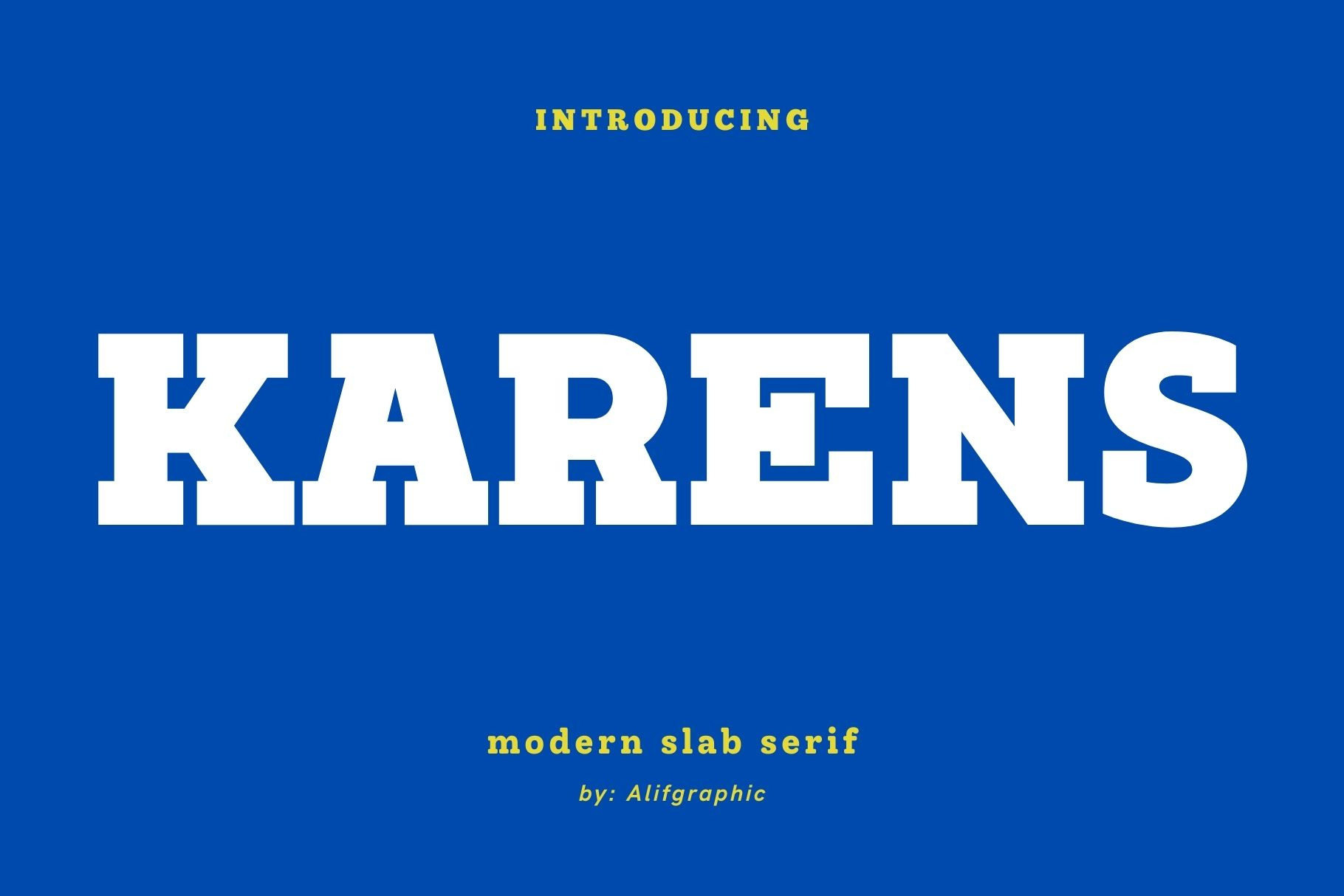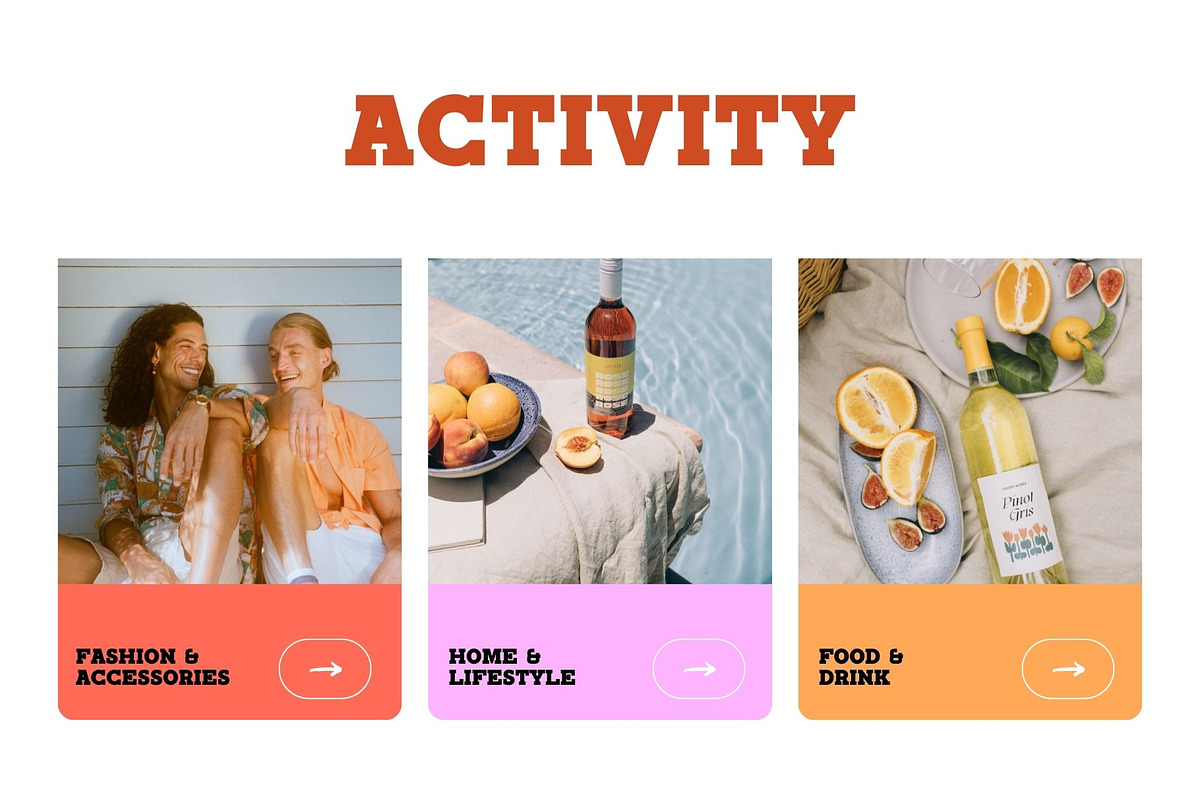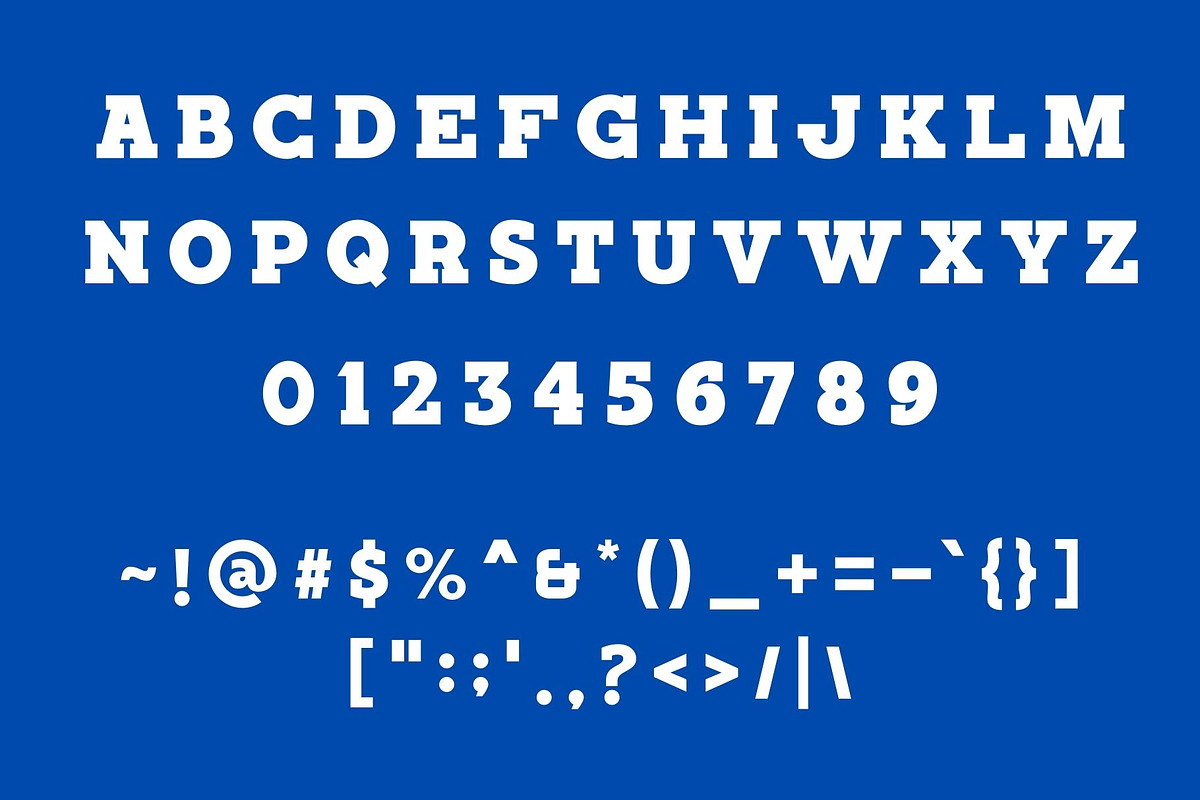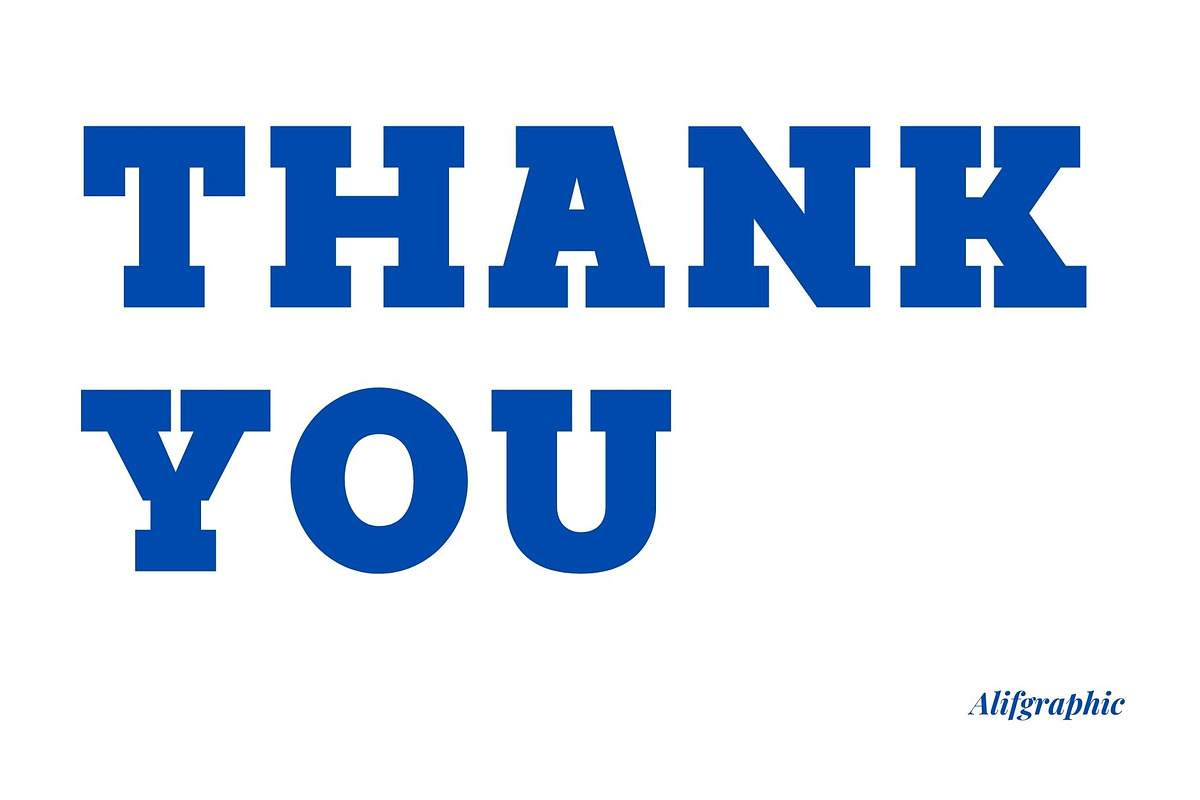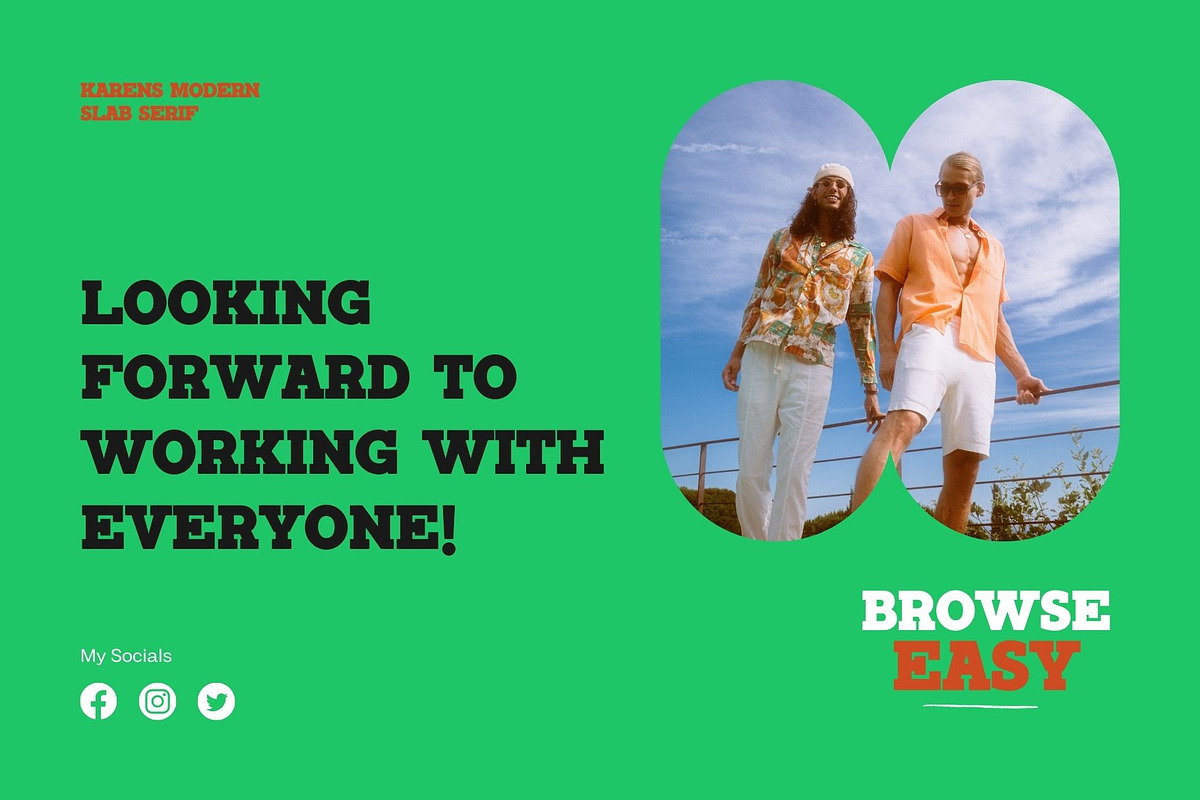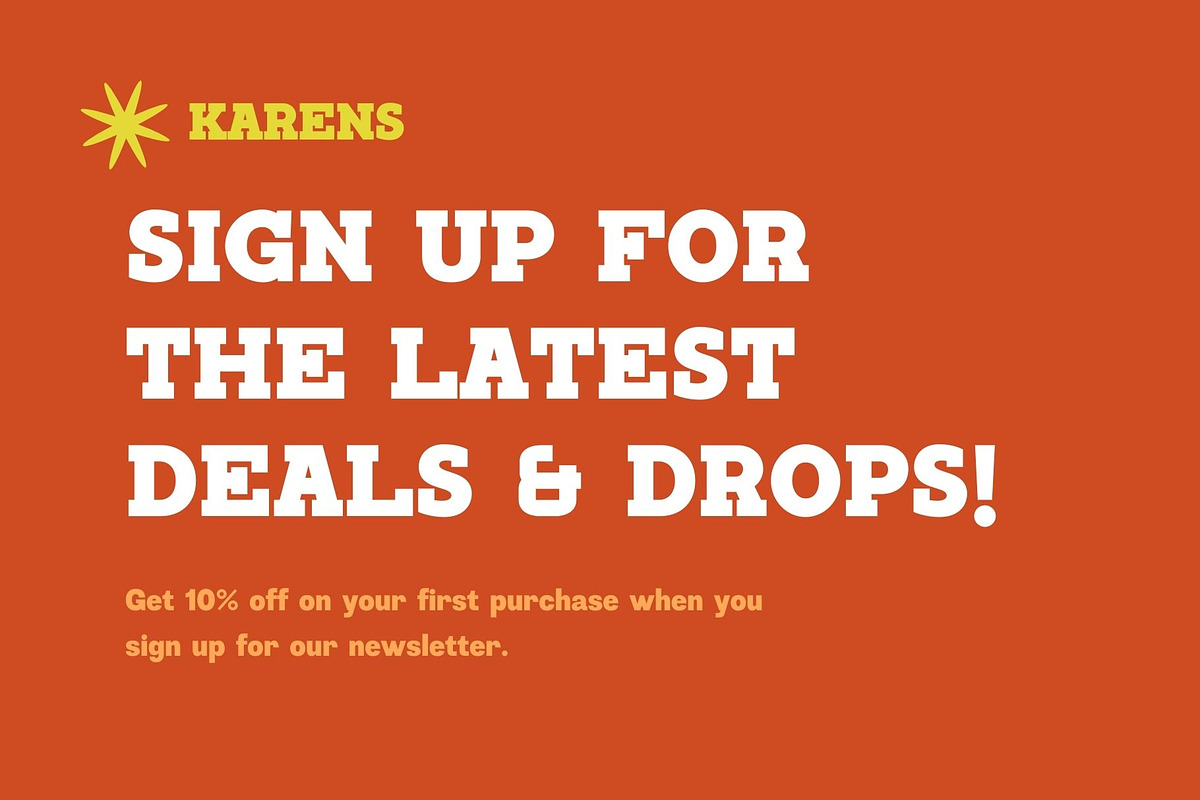
Karens - Modern Slab Serif Typeface
Introducing 'Karens' Font:
A beautiful series of letters is encapsulated in this 'Karens' font. Neat lettering is perfect for writing needs that are modern and pleasing to the eye, there is a Modern impression but still looks Elegant when used for writing. Tidiness in the manufacture of each letter, is our top priority. You can have fun and be creative using this font product we made, because the results will definitely be very satisfying.
Ideal for:
- Modern Designs
- Advertising Campaigns
- Web Design Projects
- Social Media
- Personal Branding
- Ready for Creative Expression
- Immaculately Crafted Letters